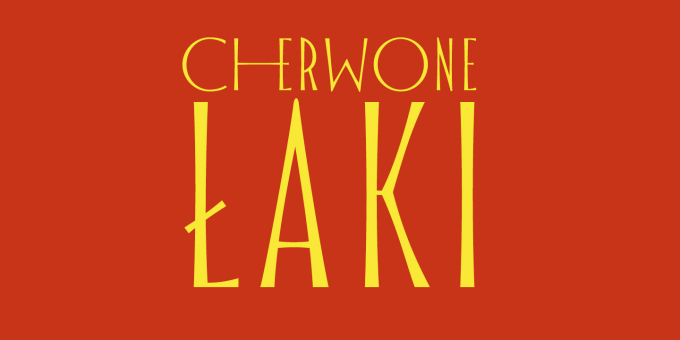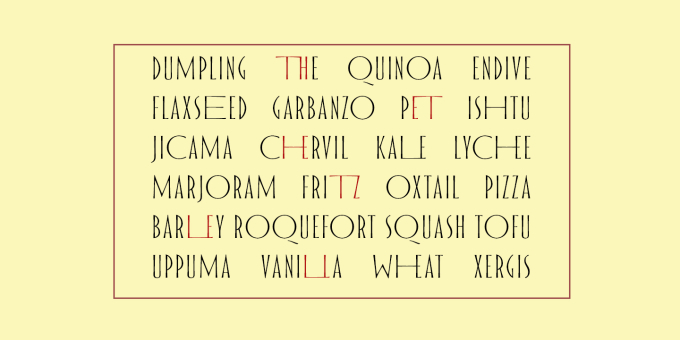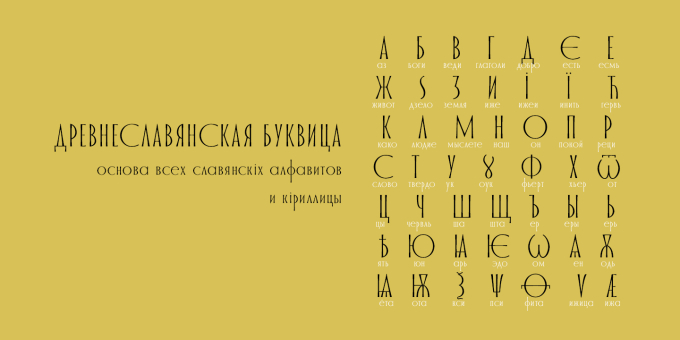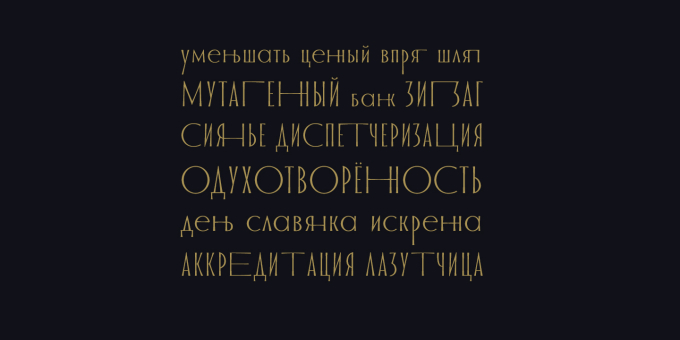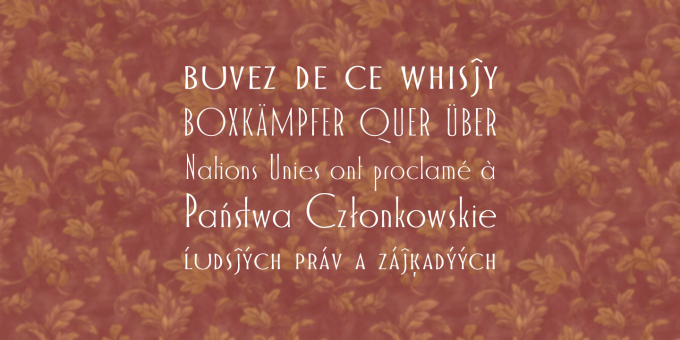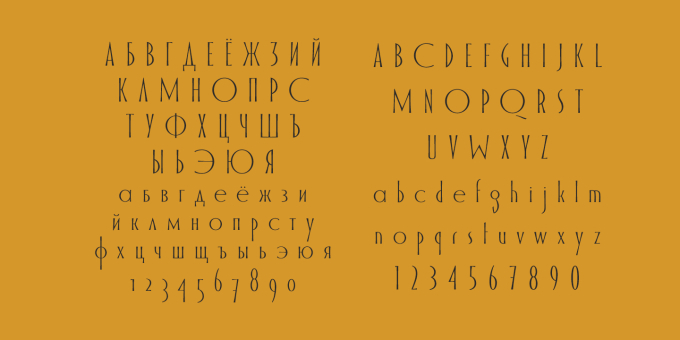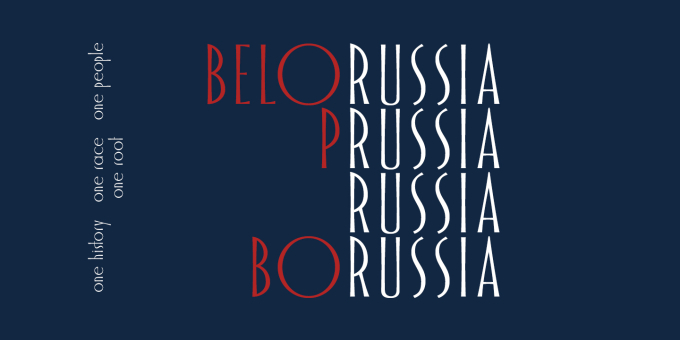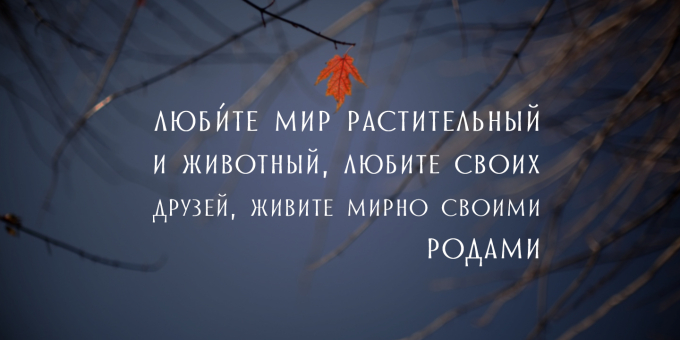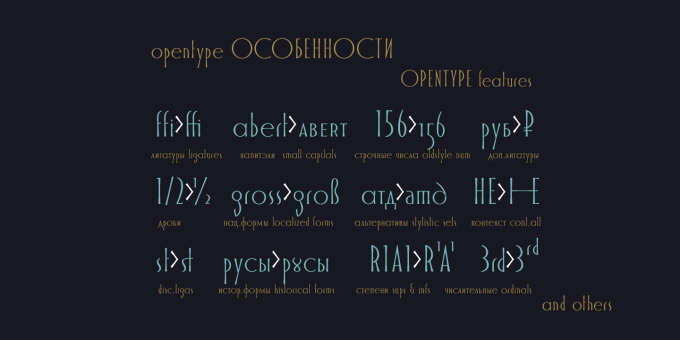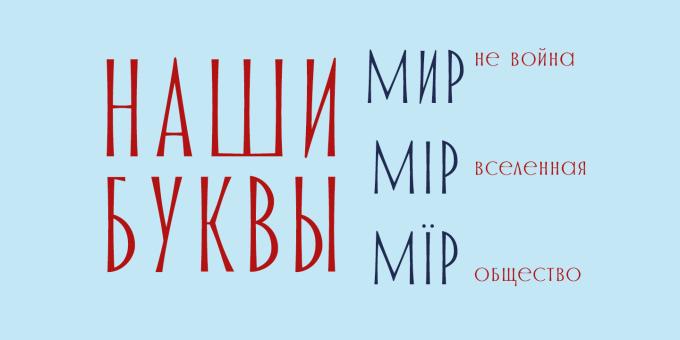
GOR
Font GOR was born from a one letter) It has a graceful form lines and pleasant proportions. The special charm of this font gives is a combination of narrow and wide letters, rounded letters, which is create a lively and original character. A particularly interesting solution is the ligatures composed of the characteristic letters of the font that the text looks gorgeous, giving a special flavor (contextual ligatures).
GOR includes all letters of Europeans and Slavonic alphabets, standard and oldstyle numbers, small capitals, just about 1000 characters, and 29 Opentype features, so that it can be blagodar to use in completely different situations.